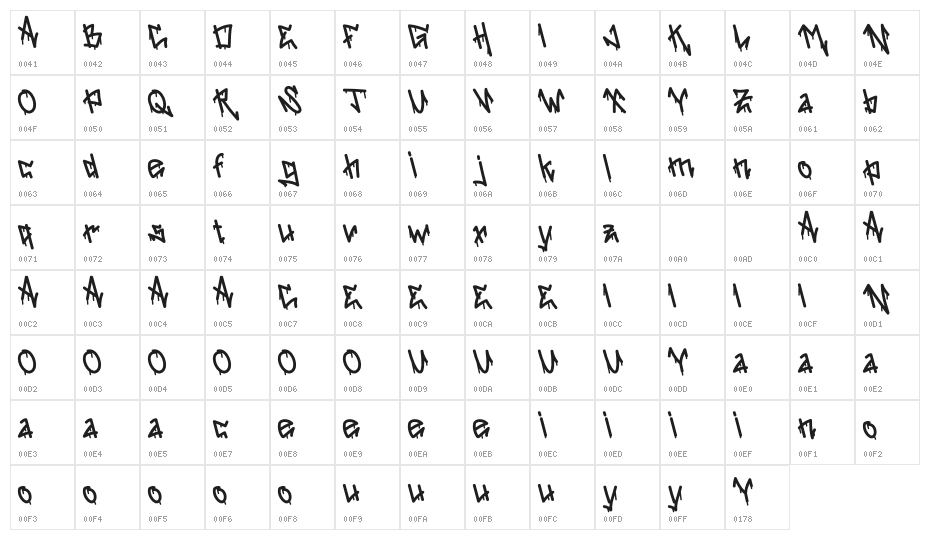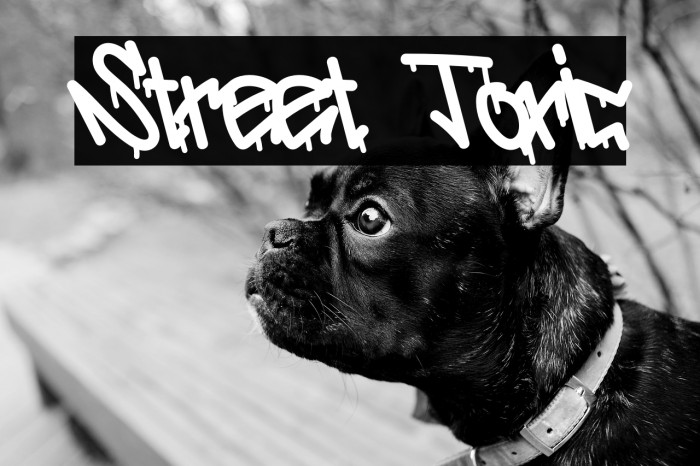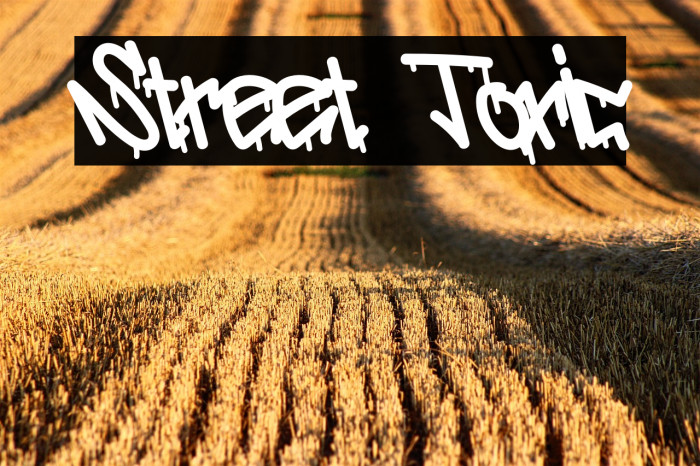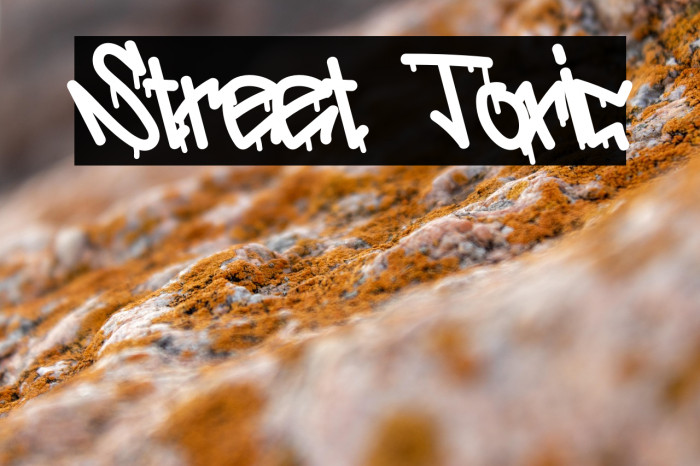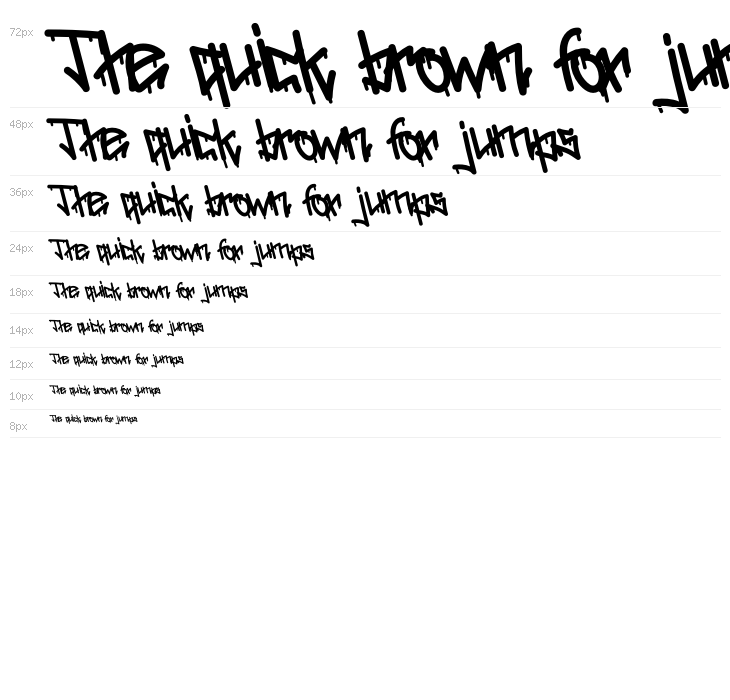
Street Toxic Font
Street Toxic Description
This font exudes an urban, graffiti-inspired aesthetic, characterized by its bold, jagged lines and dynamic, energetic strokes. The letters are highly stylized, with an aggressive slant and uneven baseline, mimicking the spontaneous nature of street art. Each character is unique, with exaggerated angles and a sense of movement, creating a chaotic yet cohesive look. The uppercase and lowercase letters maintain a consistent style, while the numbers and special characters follow suit, adding to the overall edgy and rebellious feel. This font captures the essence of street culture, making it ideal for projects that aim to convey a sense of raw, unfiltered expression.
| Overall Style | Urban, Graffiti, Edgy |
| Proposed Projects | Perfect for streetwear branding, music album covers, urban event posters, and graffiti art projects. |